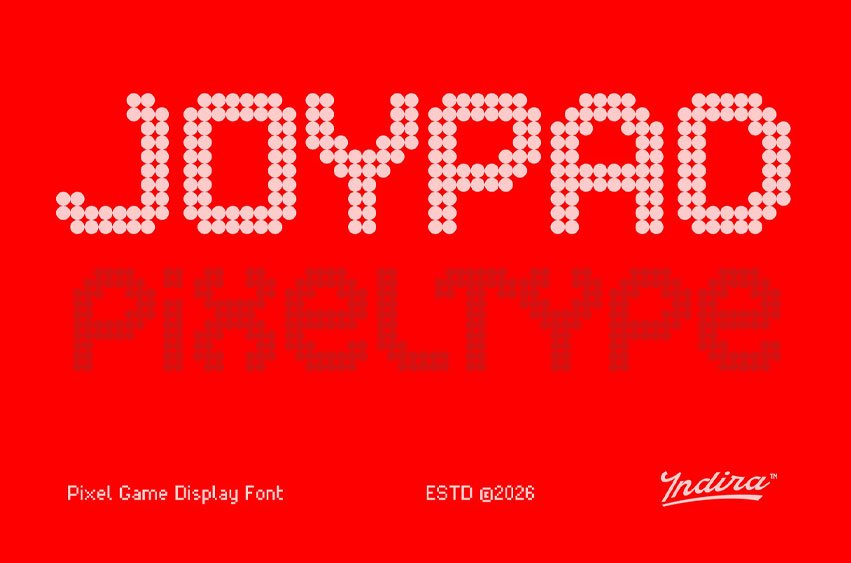
Pixel Joypad Font
Pixel Joypad Font is a pixel font that blends retro charm with a cheerful and playful personality, perfect for capturing the spirit of classic digital experiences. Built with a unique dotted bitmap style, this display font takes inspiration from arcade screens, early tech visuals, and Y2K culture, creating a look that feels nostalgic yet fresh. Its rounded pixel construction gives it a distinctive appearance that stands out while still maintaining clarity across various design uses.
Created for game titles, gaming visuals, and tech-driven projects, Joypad offers a flexible solution for bold and expressive display work. The font fits perfectly into arcade themes, UI interfaces, posters, and digital branding that lean into fun and creative energy. Whether you’re designing a retro-inspired game or experimenting with modern pixel aesthetics, Joypad delivers a dynamic and engaging visual impact.